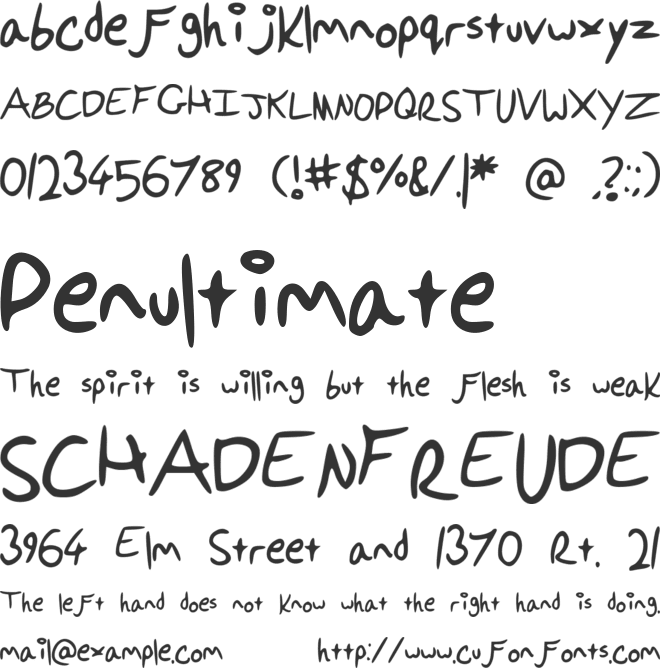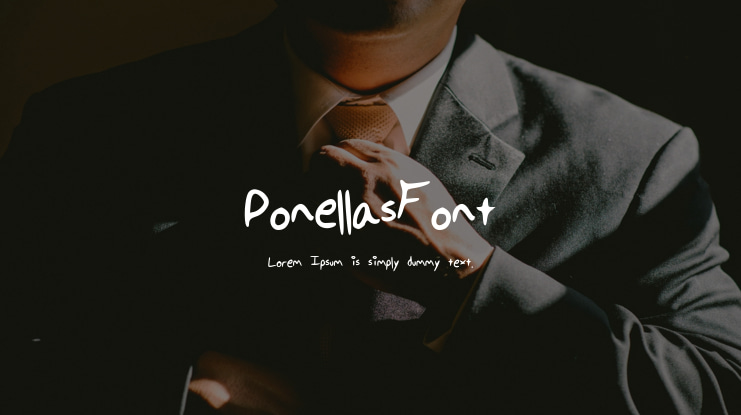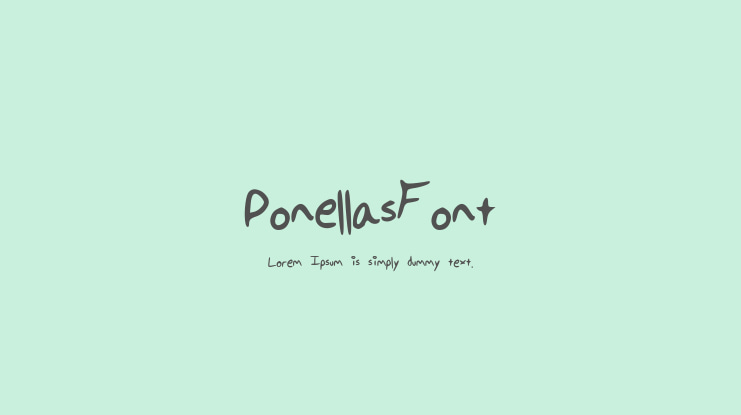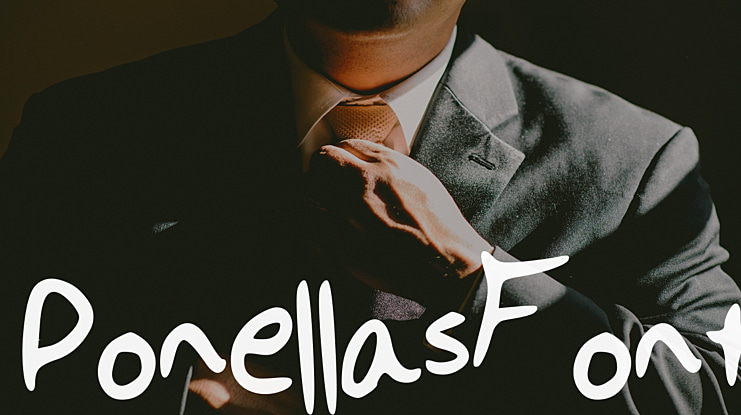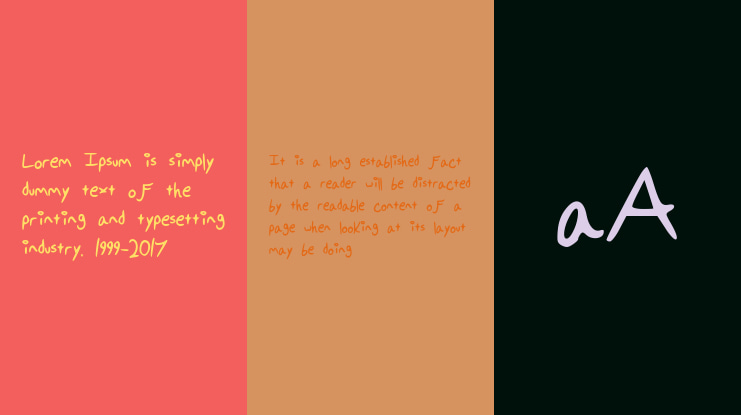
PonellasFont Font
This is my very first handwritten font; It's a bit small to work with, the f's are oddly high, and the "'s don't really work, but it's pretty good for a first try.